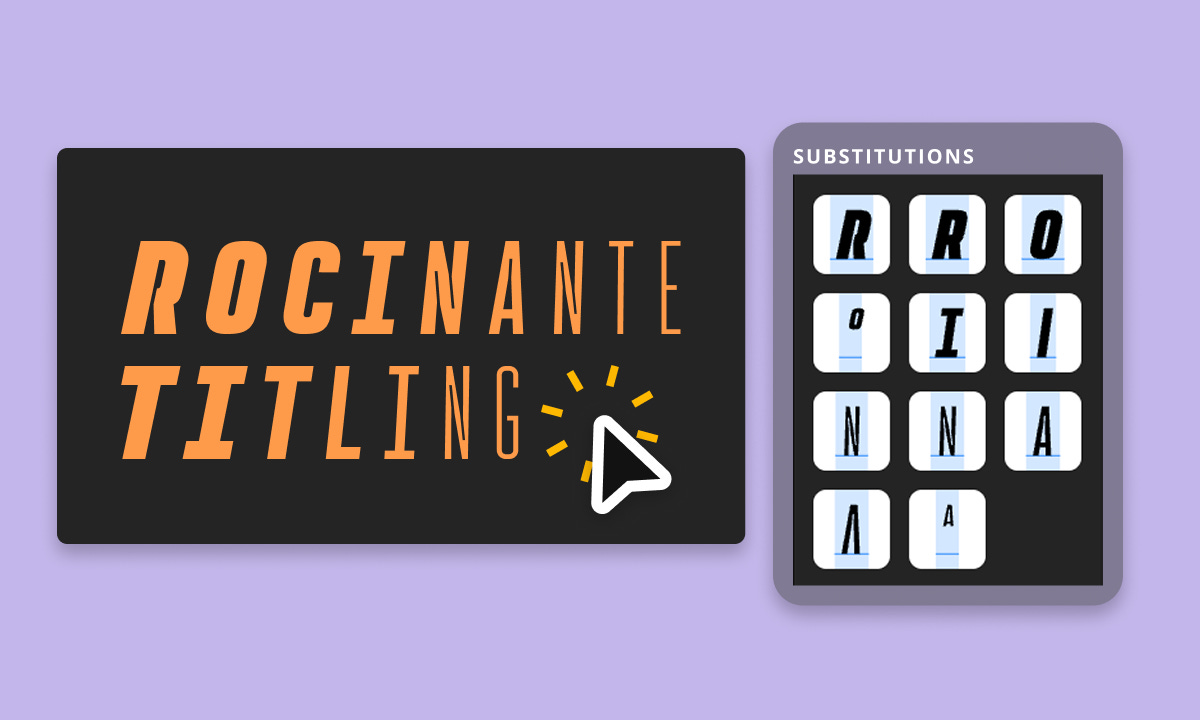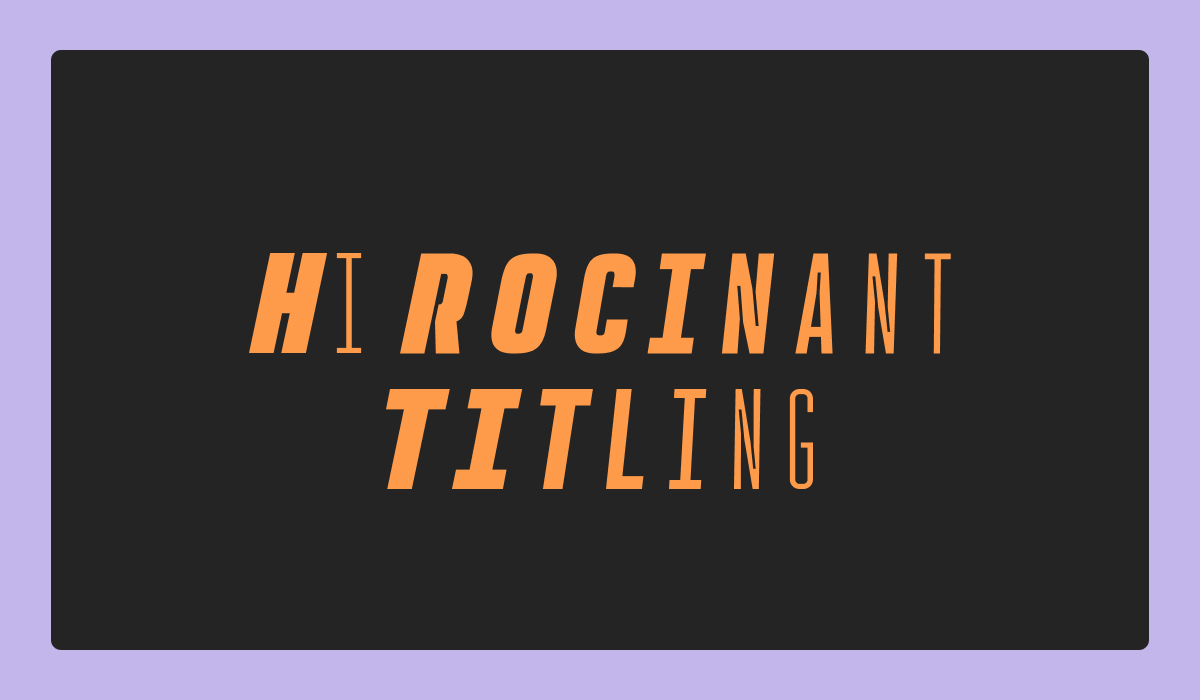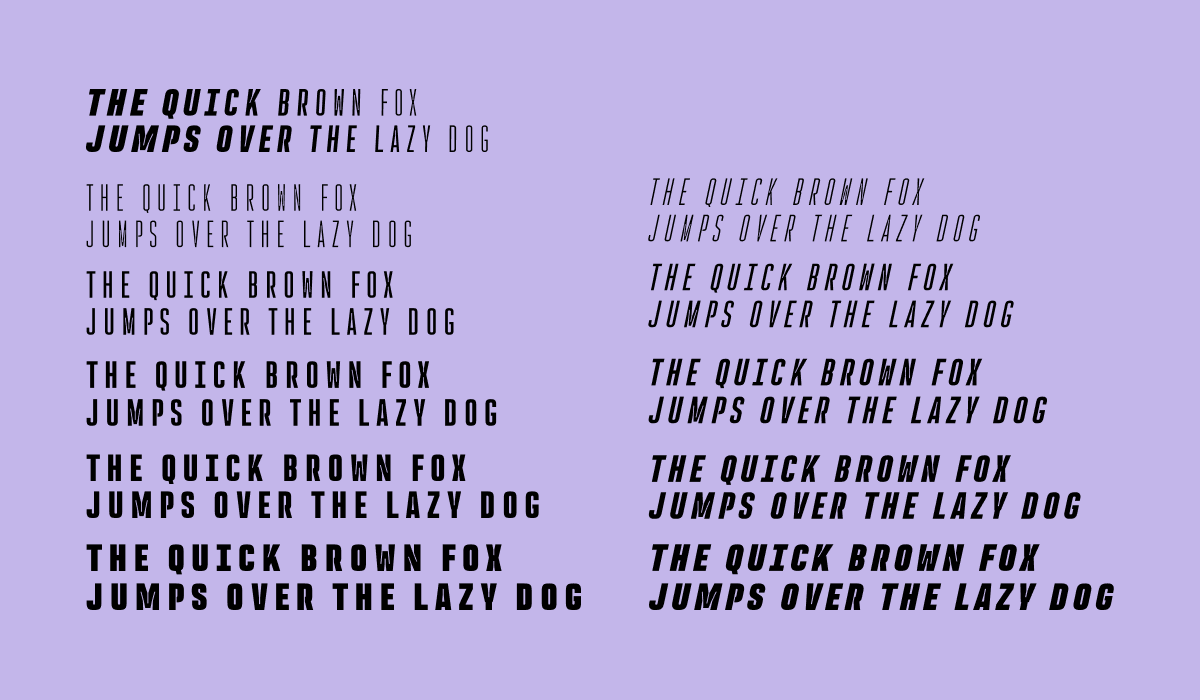
About Rocinante Titling
Rocinante Titling is a striking display sans serif with sharp ink traps, compressed proportions, and a sculptural rhythm that feels both refined and daring. Designed for drama and detail, it’s built to command attention at scale. With five weights, obliques, and a variable version, Rocinante Titling is a versatile choice for branding, editorial design, or cinematic titles. Its condensed frame makes it perfect for tight spaces, while the exaggerated ink traps and carefully carved light traps give the letterforms a distinct, high-contrast energy. Whether you're crafting a minimalist cover or a bold visual identity, Rocinante Titling brings both control and character.
Type Details
5 weights
Comes in obliques and variable versions
Condensed frame with ink traps
What Are Ink Traps in Type Design?
Ink traps are little notches or cutaways you’ll sometimes see at the corners or joins of letters in a font. They were originally a clever fix for a very analog problem: when type was printed on cheap paper (like newspaper), the ink would spread and blur together—especially in tight spaces. These notches gave the ink a place to "trap" itself, helping the letters stay sharp and legible.
Nowadays, we no longer have a desperate need for ink traps for type to be legible, thanks to better technology like high-resolution screens and improved printing methods—but ink traps have stayed as a cool design detail. Some modern fonts use them purely for style, adding a quirky and utilitarian feel to the letterforms.
Behind the Typeface
Created by XO Type, Rocinante Titling is a study in contrast and tension. The interior spaces curve and stretch under the pressure of the letterform’s condensed structure, while its prominent ink traps elevate function into impactful design. Built for headline use, Rocinante Titling turns structural nuance into graphic presence, giving your typography a strong, modern edge.
Use Rocinante Titling for Design
If you're looking to add some serious punch to your typography, Rocinante Titling is a great pick. With its condensed shape and dramatic ink traps, it’s built to grab attention whether you're designing a bold magazine cover, a sleek movie poster, or a sharp visual identity. Those little notches in the letters (also known as ink traps) add a cool, utilitarian vibe that feels both modern and retro. Plus, with five weights, obliques, and a variable version, Rocinante is flexible enough to fit the needs of many typography design projects.